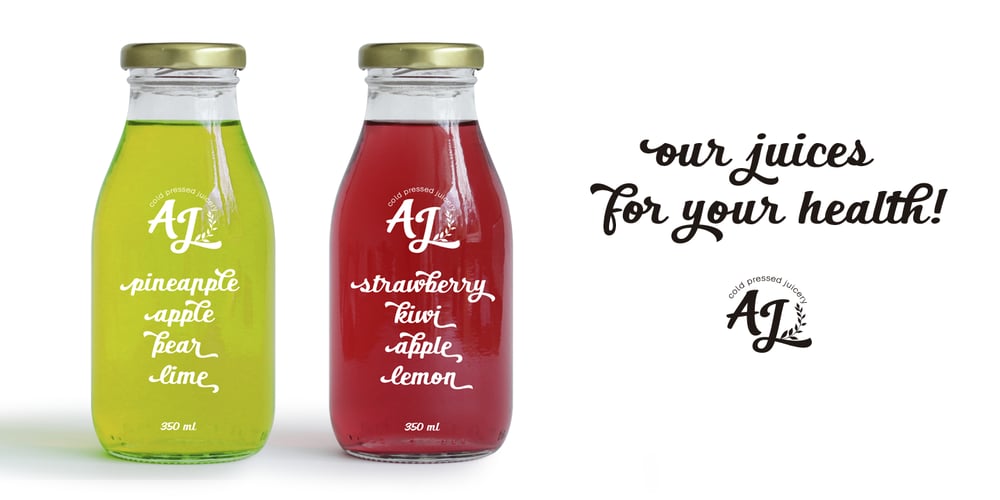
Bernyck
Bernyck font
Bernyck Font Family was designed by Carine de Wandeleer and published by Eurotypo. Bernyck contains 4 styles and family package options. Bernyck is a vintage fonts inspired by bold advertisers hand lettering styles, popular in the late 1940s through the early 1950s. It has the same charm as his brother “Cinefile”, but, this time, connected and with more alternates. The Bernyck family is integrated by Bernyck and Bernyck Extrude to interact together. To this we add a beautiful set of 131 ornaments, Bernyck Ornaments and of course, Bernyck Ornaments Extrude. The Open Type features include a full international character compliment, standard and contextual alternates, swatches, stylistic sets, initial forms, standard and discretionary ligatures. All this makes the text lively and bouncy, without the monotony of obviously repeated letterforms. A total of 634 glyphs to offer you many more options for your designs! Bernyck, like all our fonts, was carefully designed, controlled and tested in both aspects: readability and technical aspects. We take care of the kerning pairs, hinting and the precise programming of the Open Type functions; as well as the final touch of each glyph. Bernyck adapts well to titles, packages, invitations, greeting cards, magazines and book covers, children’s material, fashion, logos and, posters and wherever you need a fun and sympathetic display font.